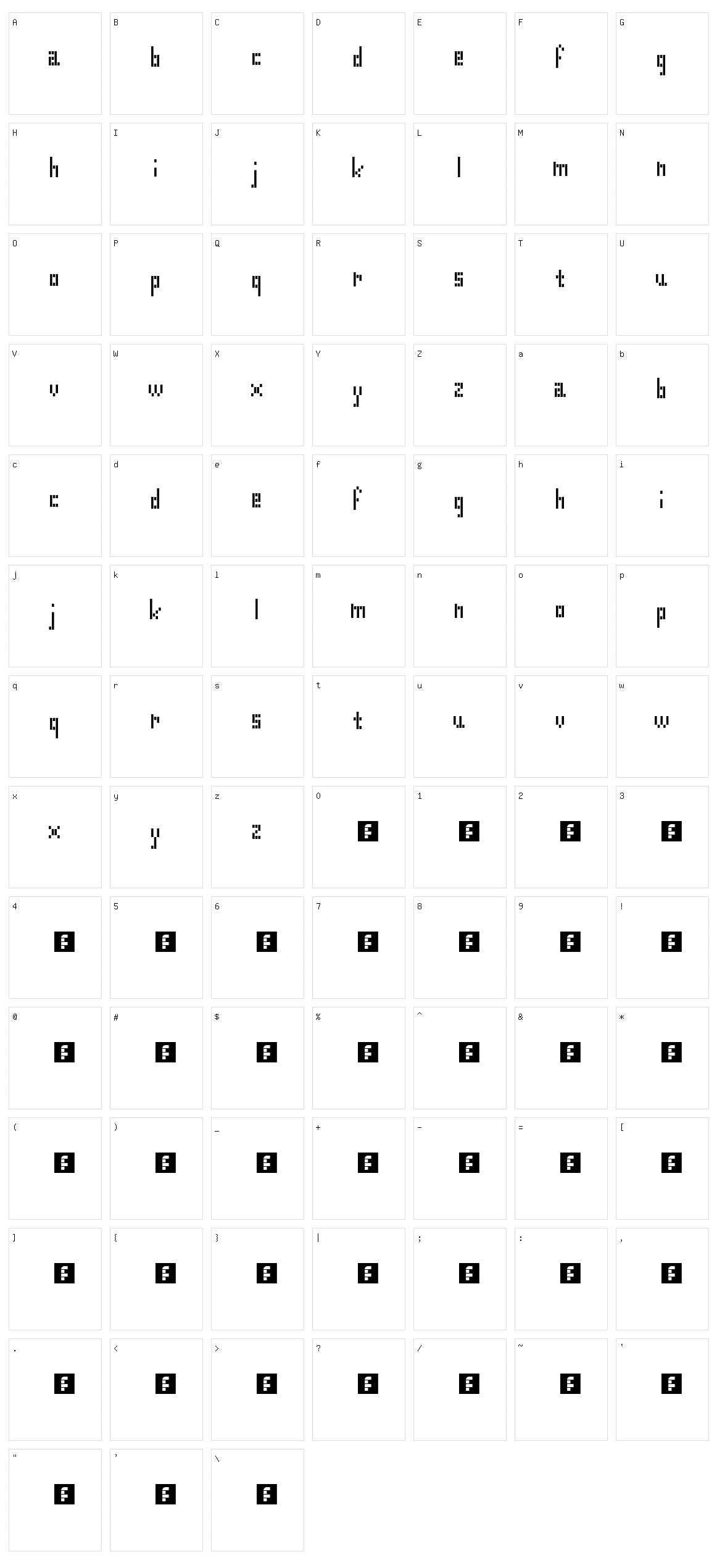
The free font Receipt Paper Radiation is carefully designed by Zach Willard, showcasing a thoughtful balance of creativity and usability and falls under the Square font style. When you download the ZIP file, it contains only 4.71 KB of font files, making it lightweight and quick to download. Please review the license details below to understand permitted usage and distribution rights. If license information is not available, we recommend using this font for personal projects only or contacting the author directly for commercial usage permissions.